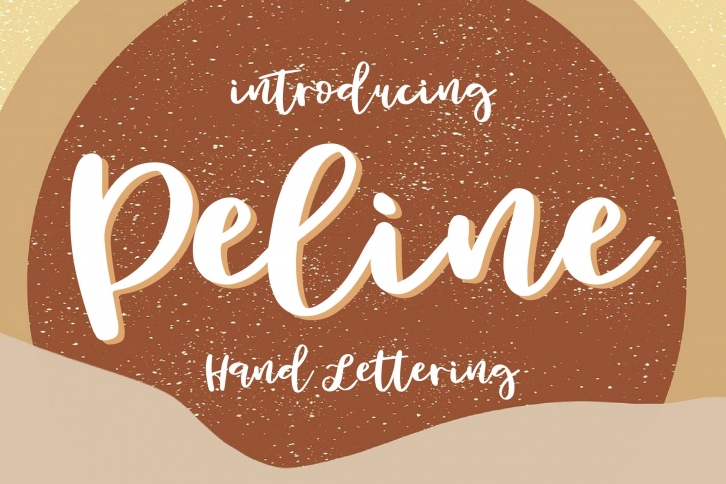
Peline is a bold brush-lettered script font. Peline would be perfect for photography, watermarks, social media posts, advertisements, logos & branding, invitations, product design, labels, stationery, wedding designs, product packaging, special events, and other projects.